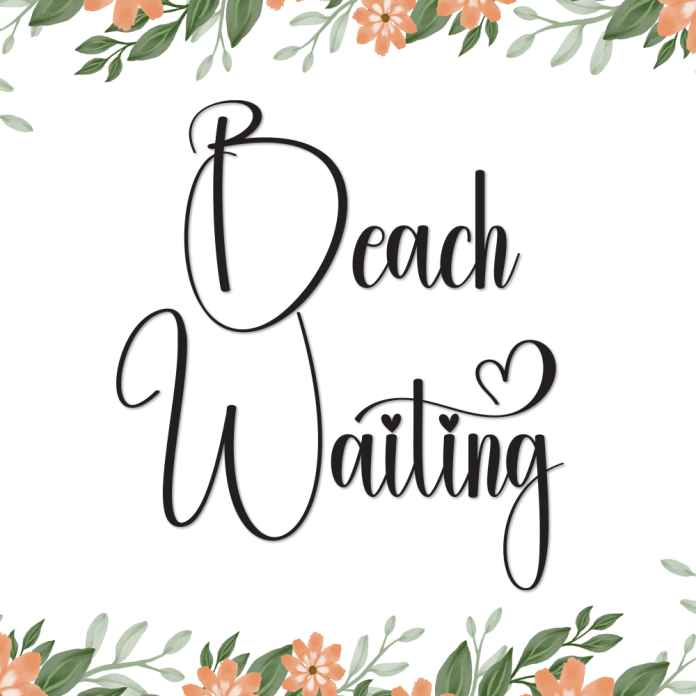
Beach Waiting is a laid-back handwritten font inspired by the calm and carefree spirit of beach days. With smooth, flowing strokes and a casual rhythm, this font captures the feeling of writing postcards by the shore or journaling under the sun.
Perfect for summer-themed designs, quotes, travel blogs, branding, or casual invitations, Beach Waiting adds a touch of warmth and coastal charm to any project.
Easygoing and natural handwriting style
Ideal for summer, vacation, or lifestyle designs
Let your creativity drift with the tide using Beach Waiting — a handwriting font made for sunny vibes and slow moments.